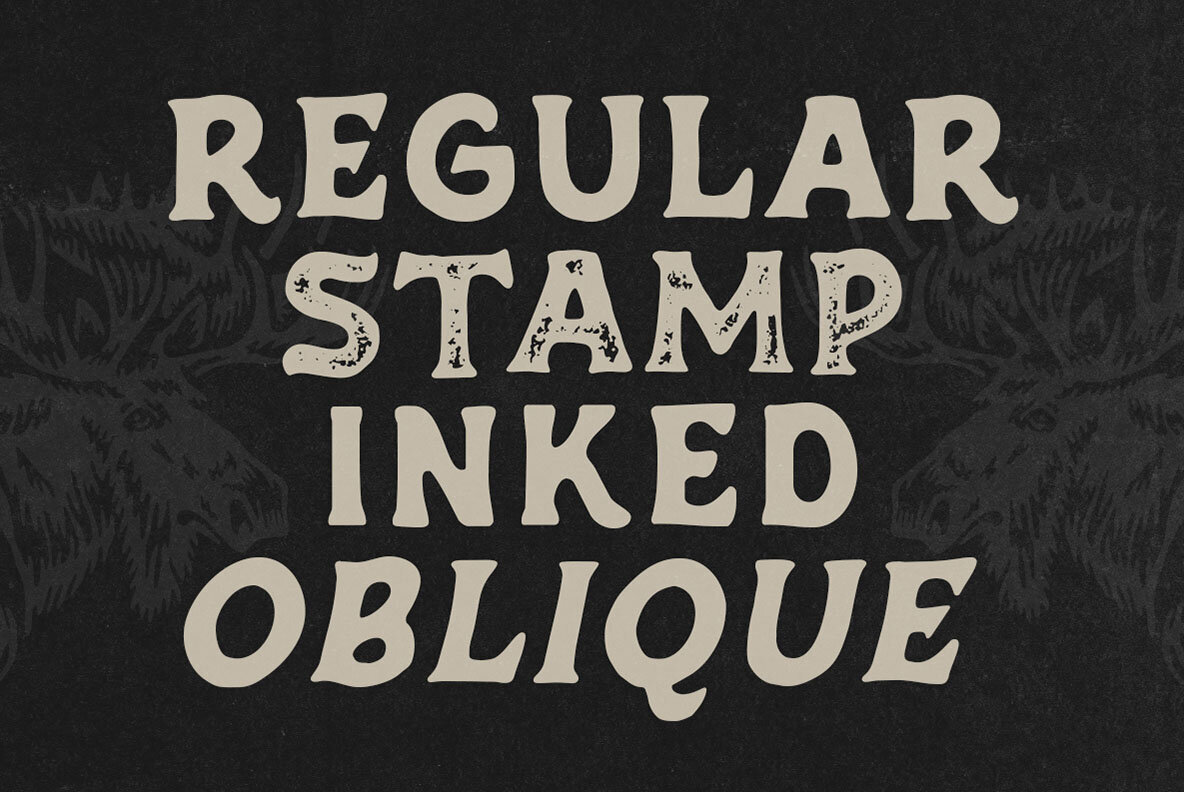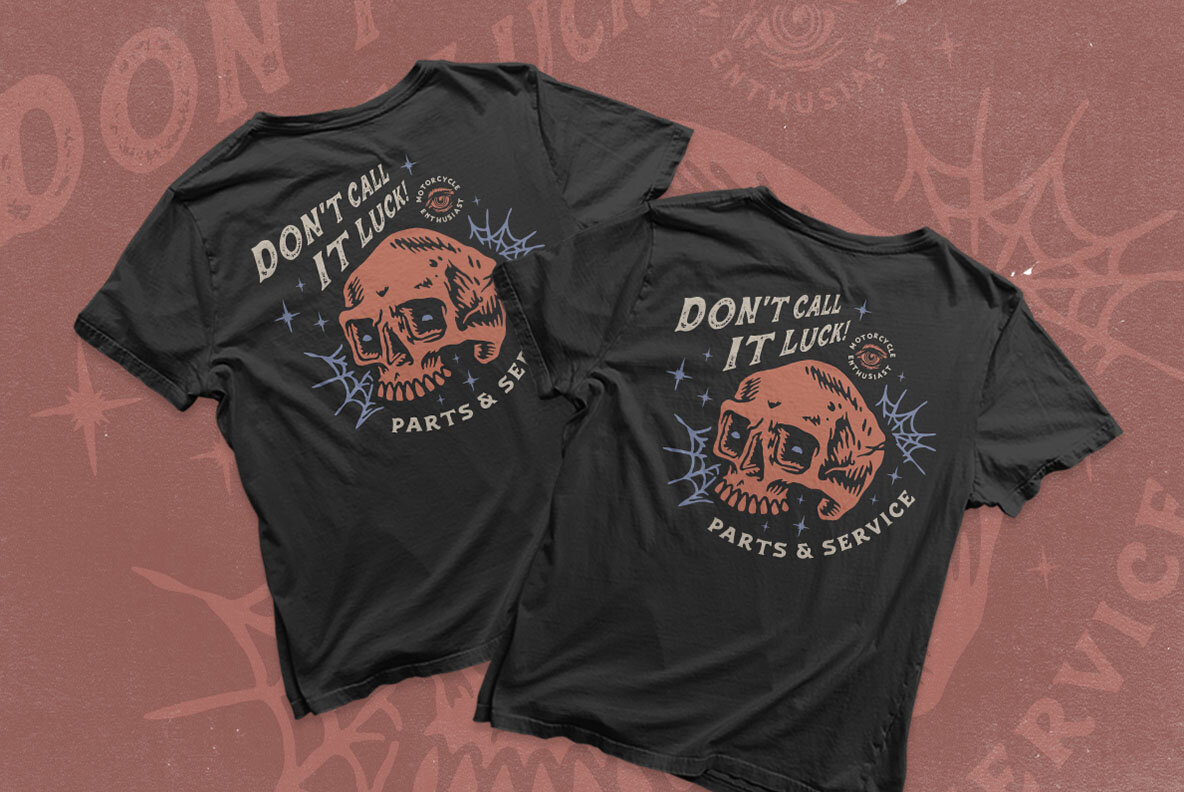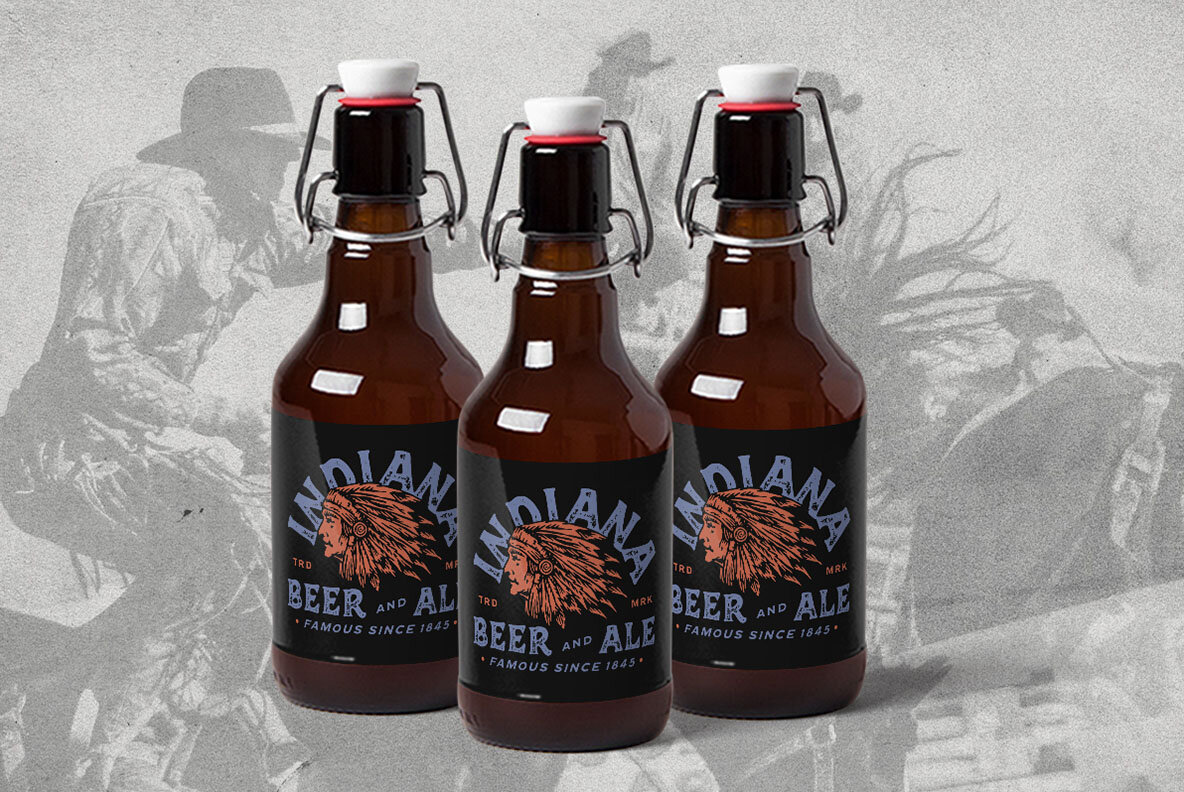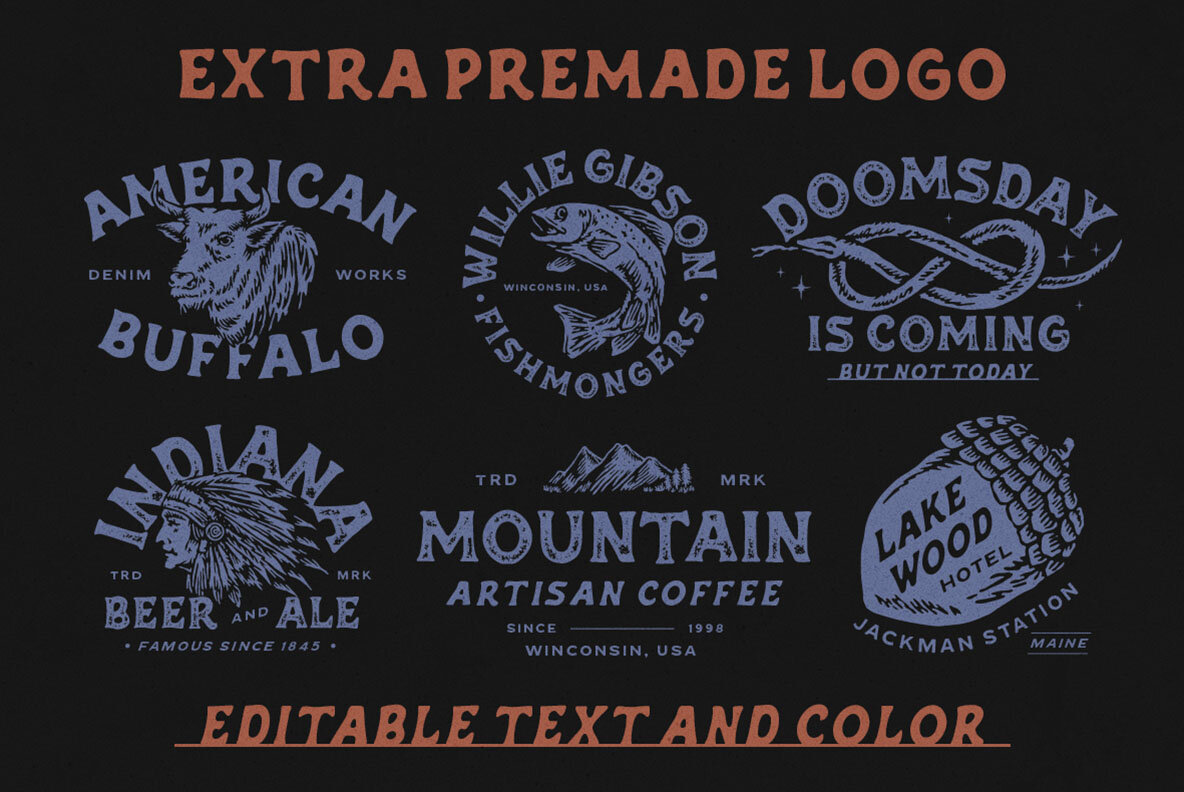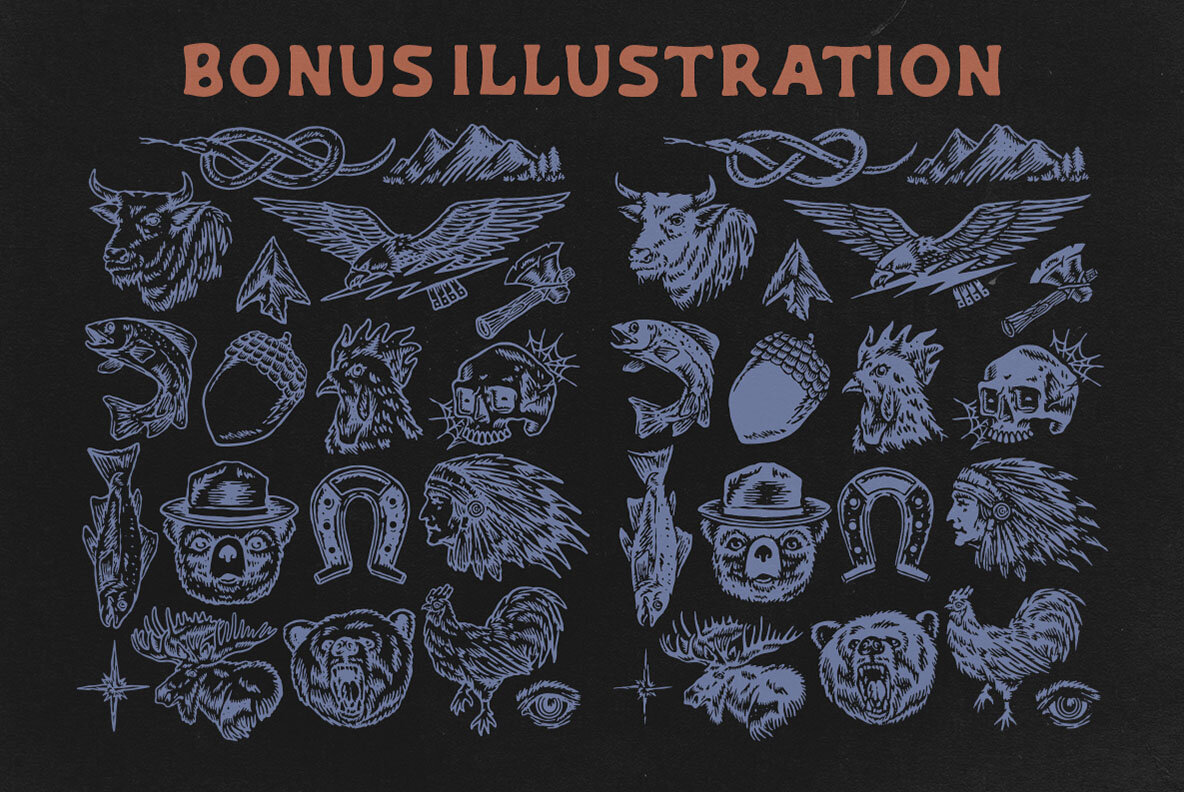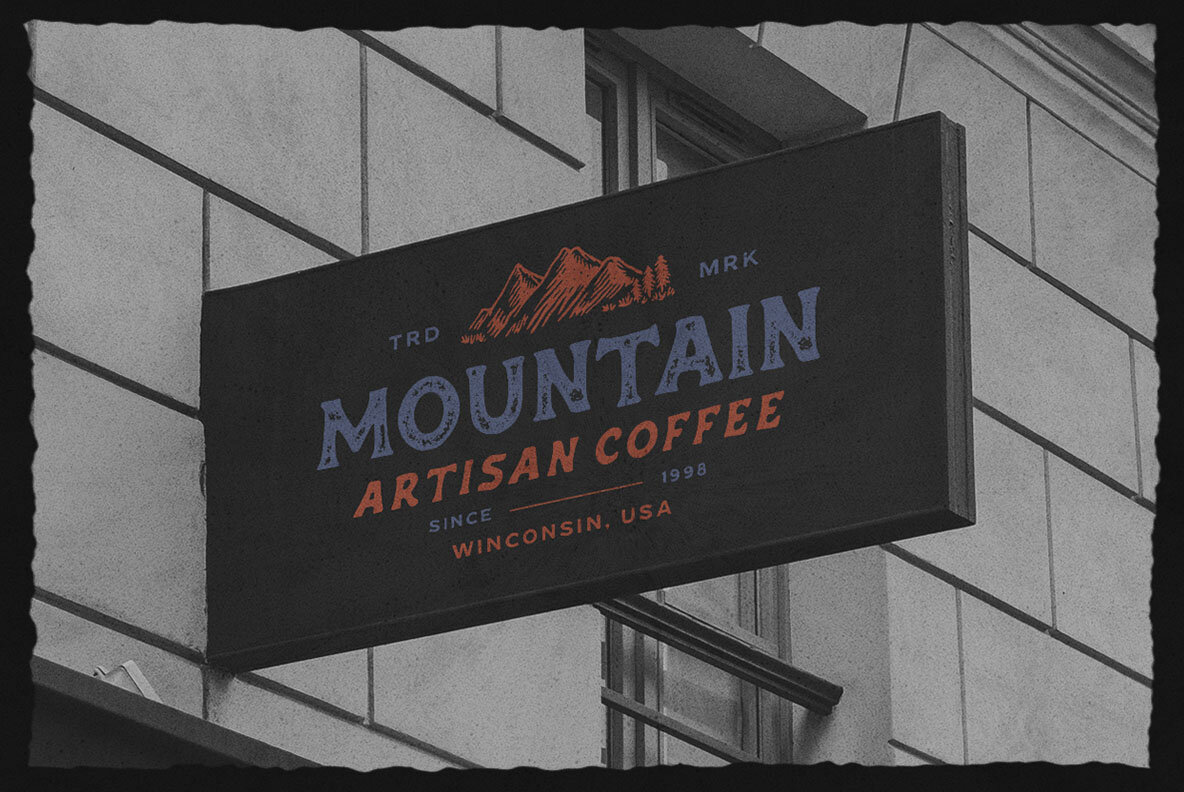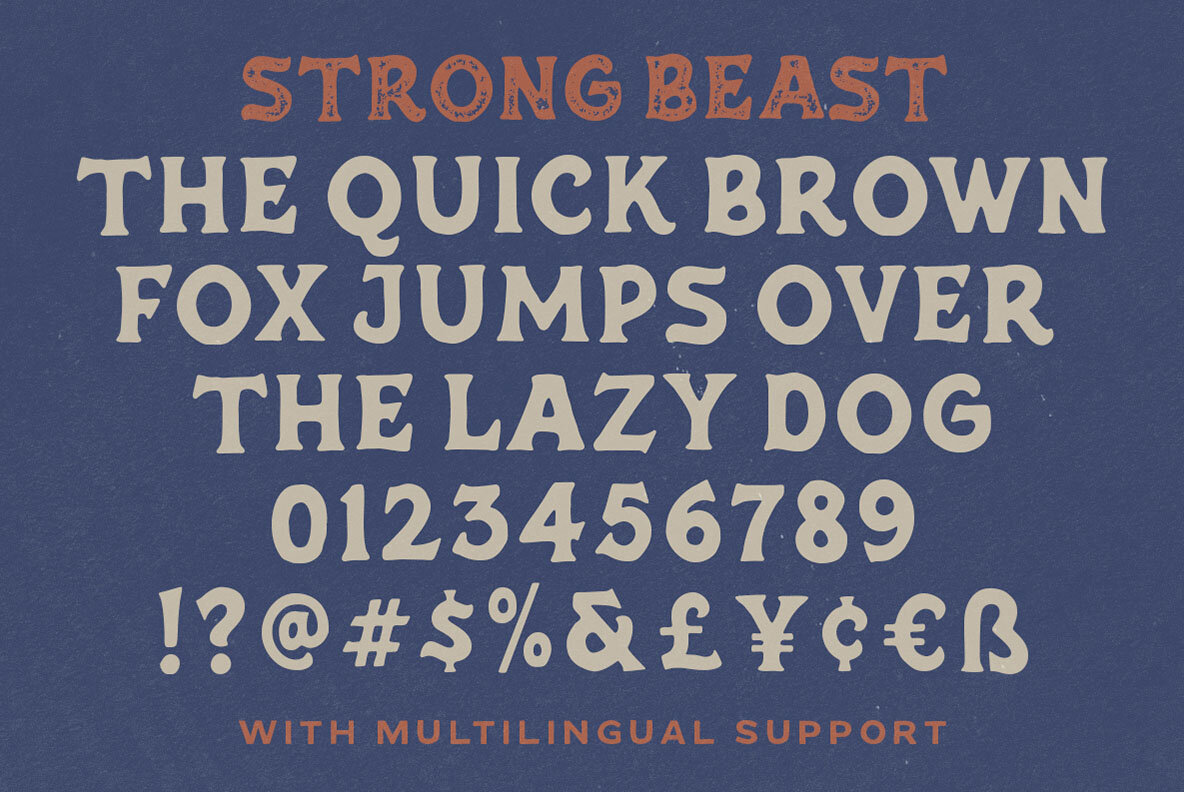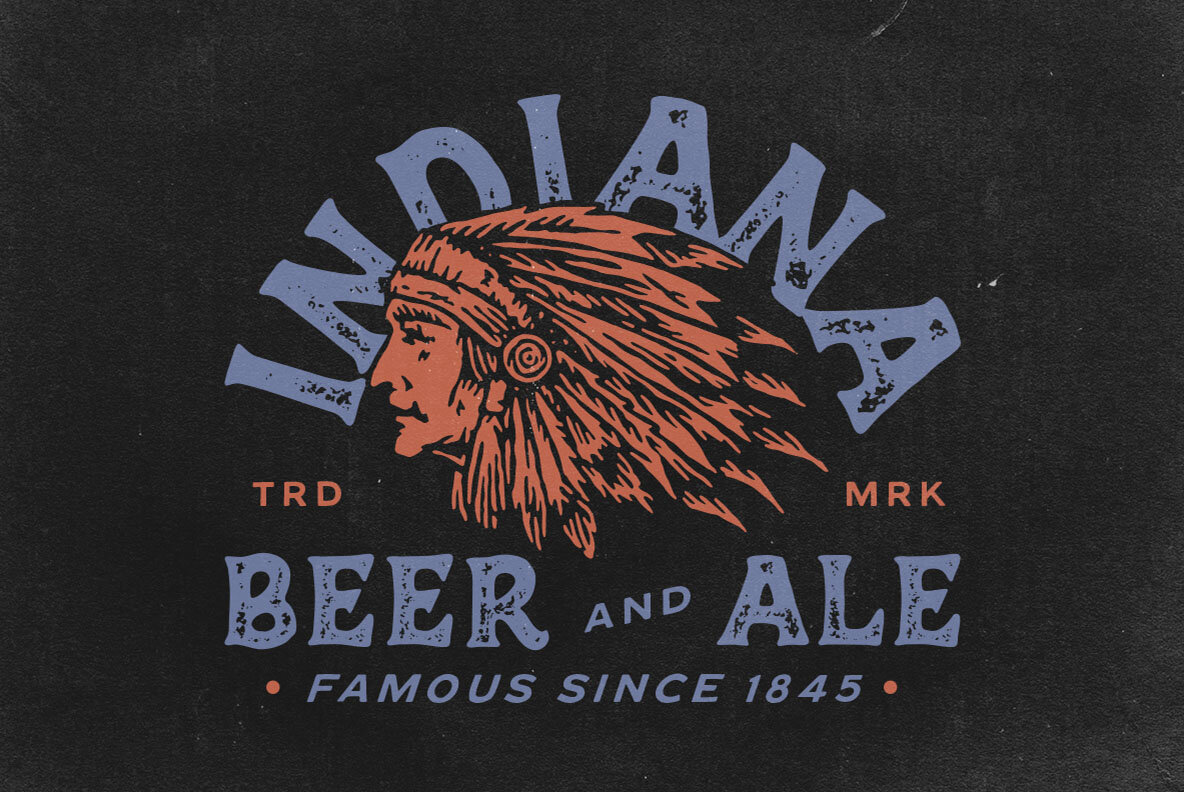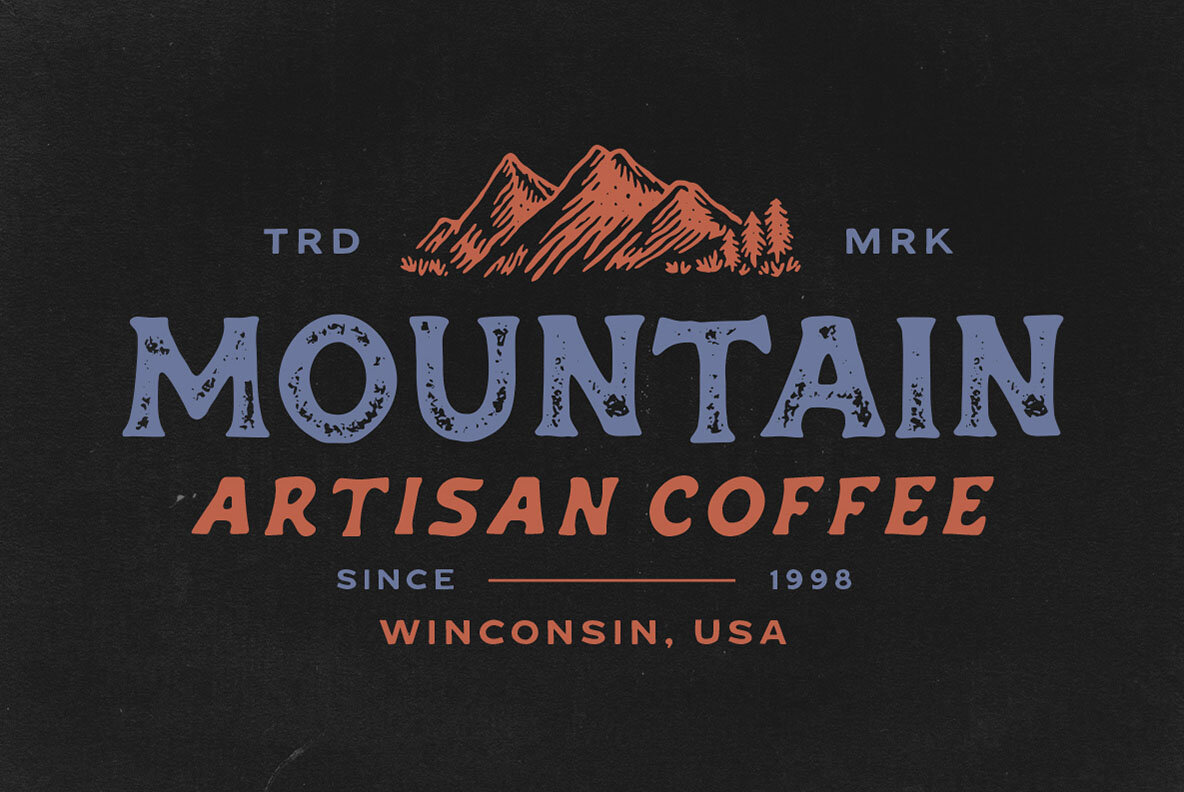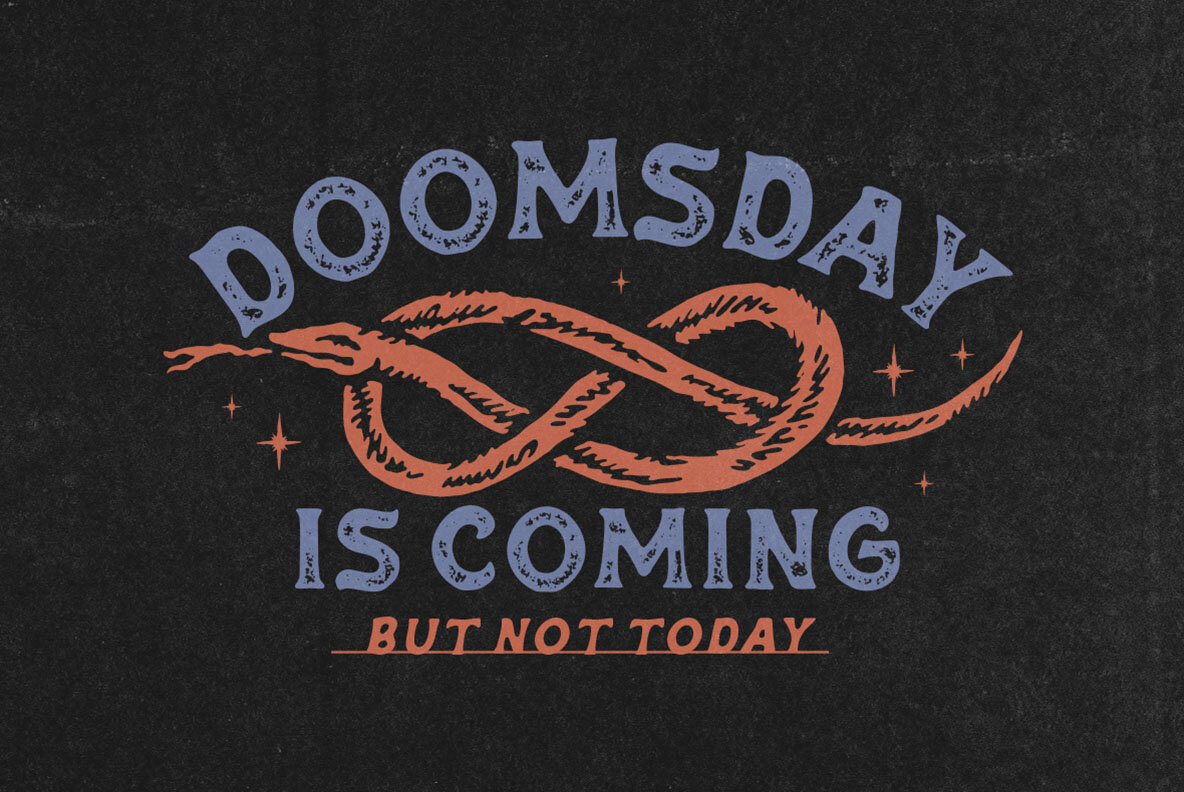
Strong Beast Font
Strong Beast Regular
Strong Beast Oblique
Strong Beast Dingbats
Strong Beast Inked
Strong Beast Inked Oblique
Strong Beast Stamp
Strong Beast Stamp Oblique
Introducing Strong Beast, a bold and strong all-caps hand-drawn typeface featuring seven distinct font styles for versatile design options. Enhance your projects with the included extra illustrations and premade logos, allowing you to create striking and cohesive designs with ease. Unleash your creativity with the dynamic Strong Beast typeface. Includes: NOTE : Please Check the Help File first and for all the characters are also available, accessible in the Adobe Illustrator Glyphs Panel, or in Adobe Photoshop Character Open Type Panel.